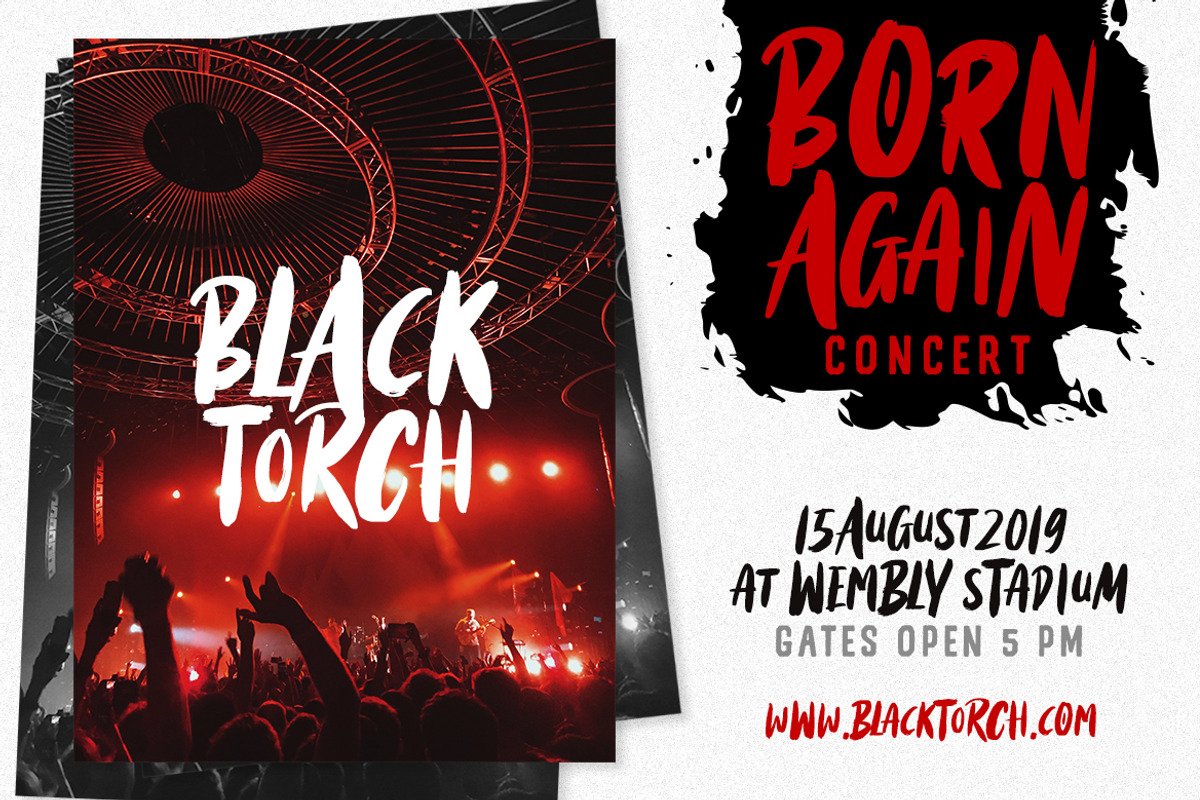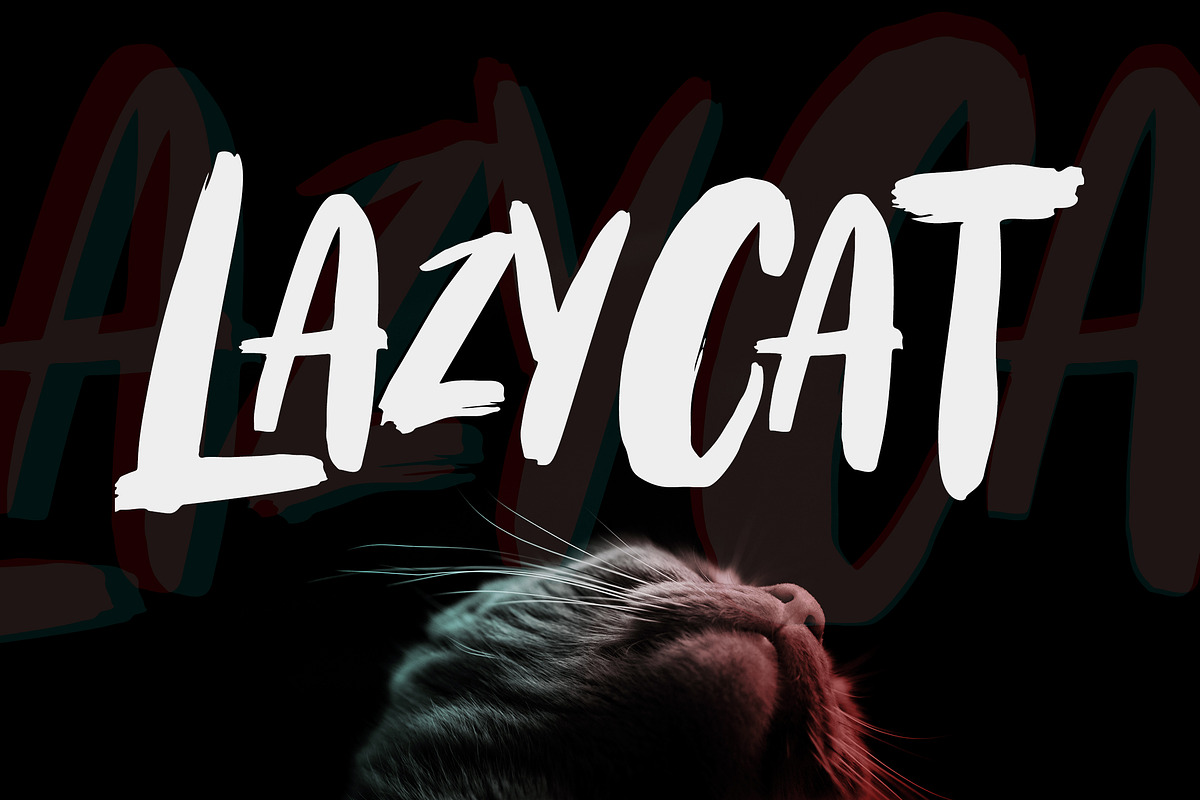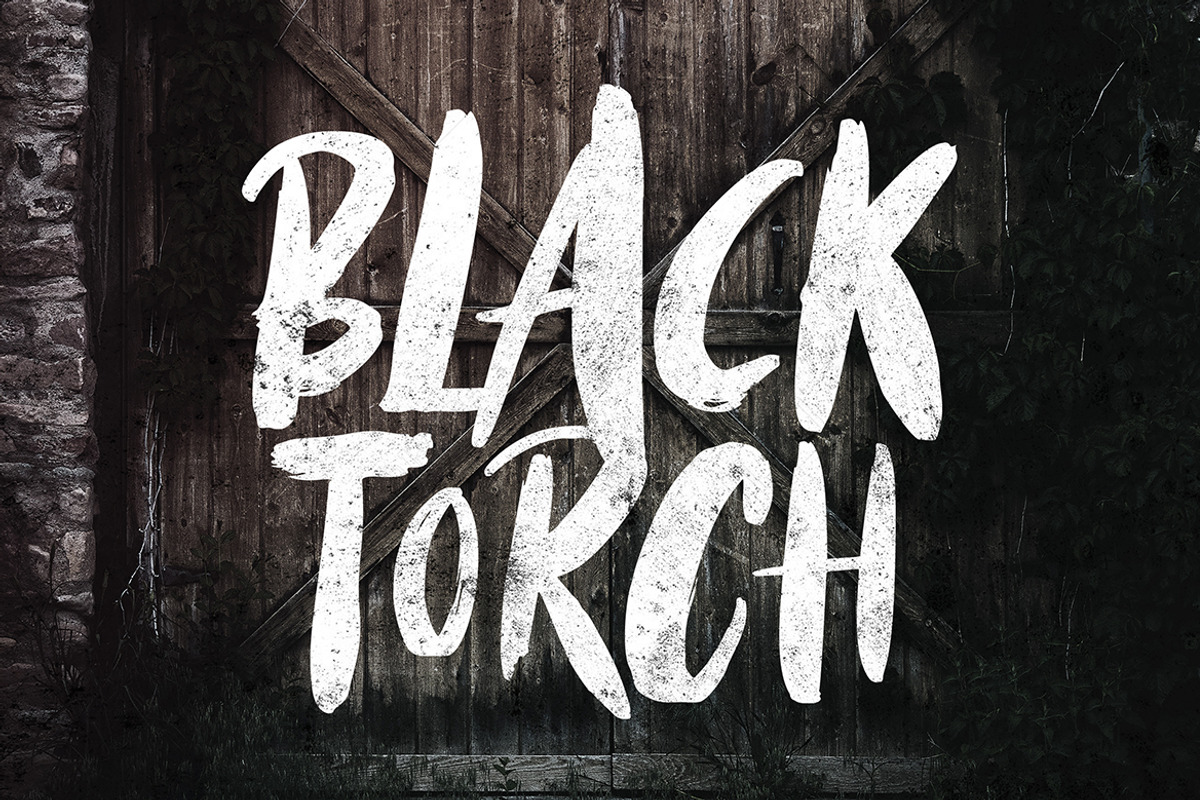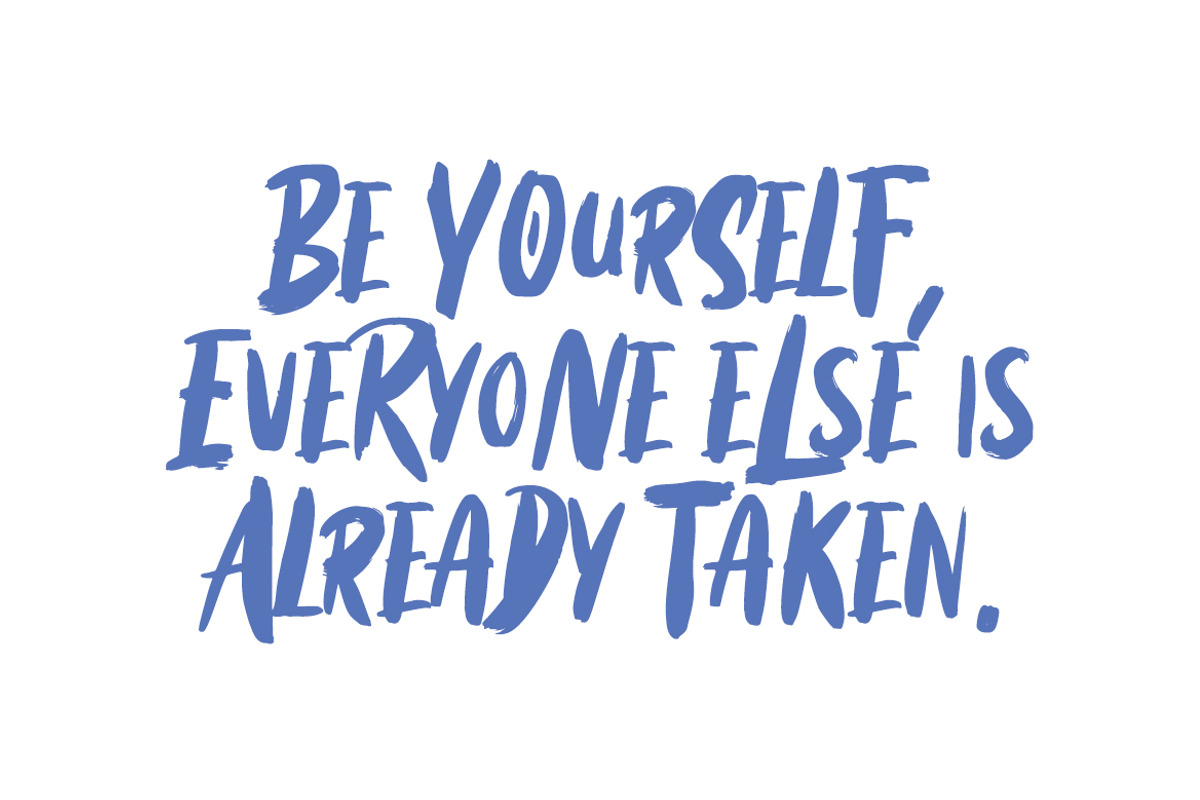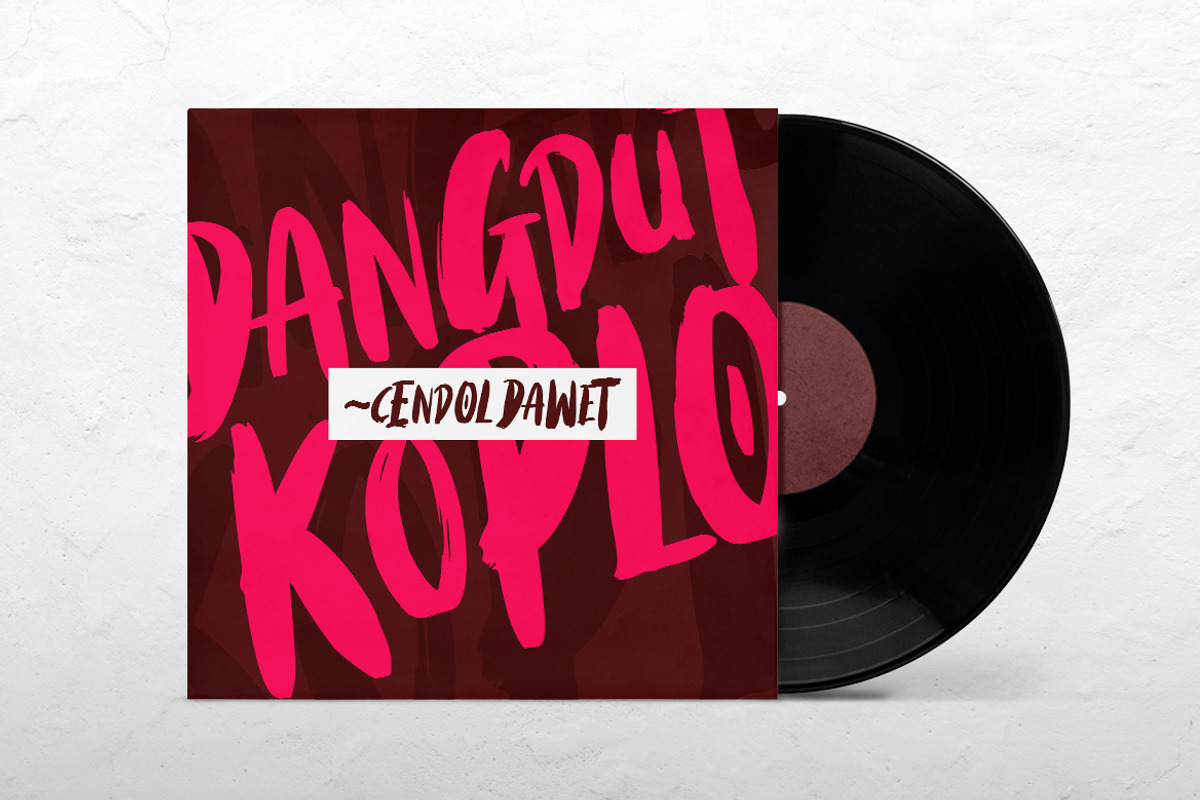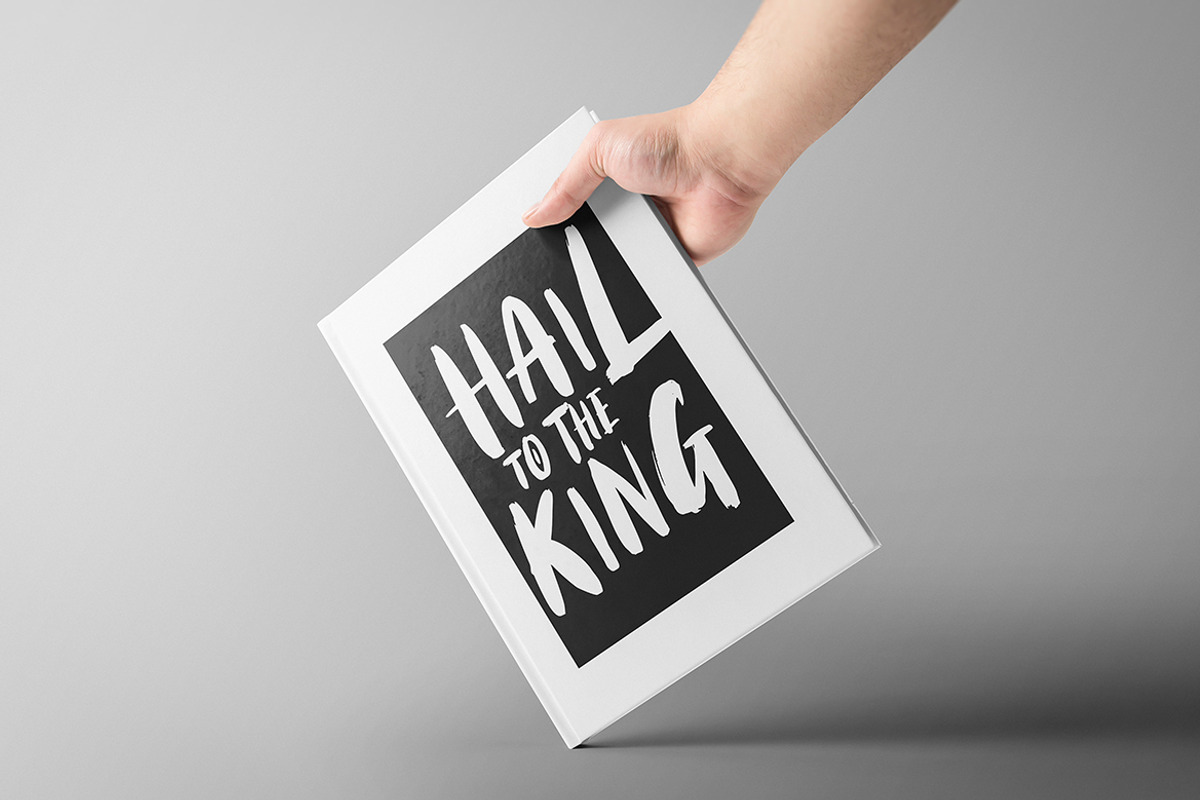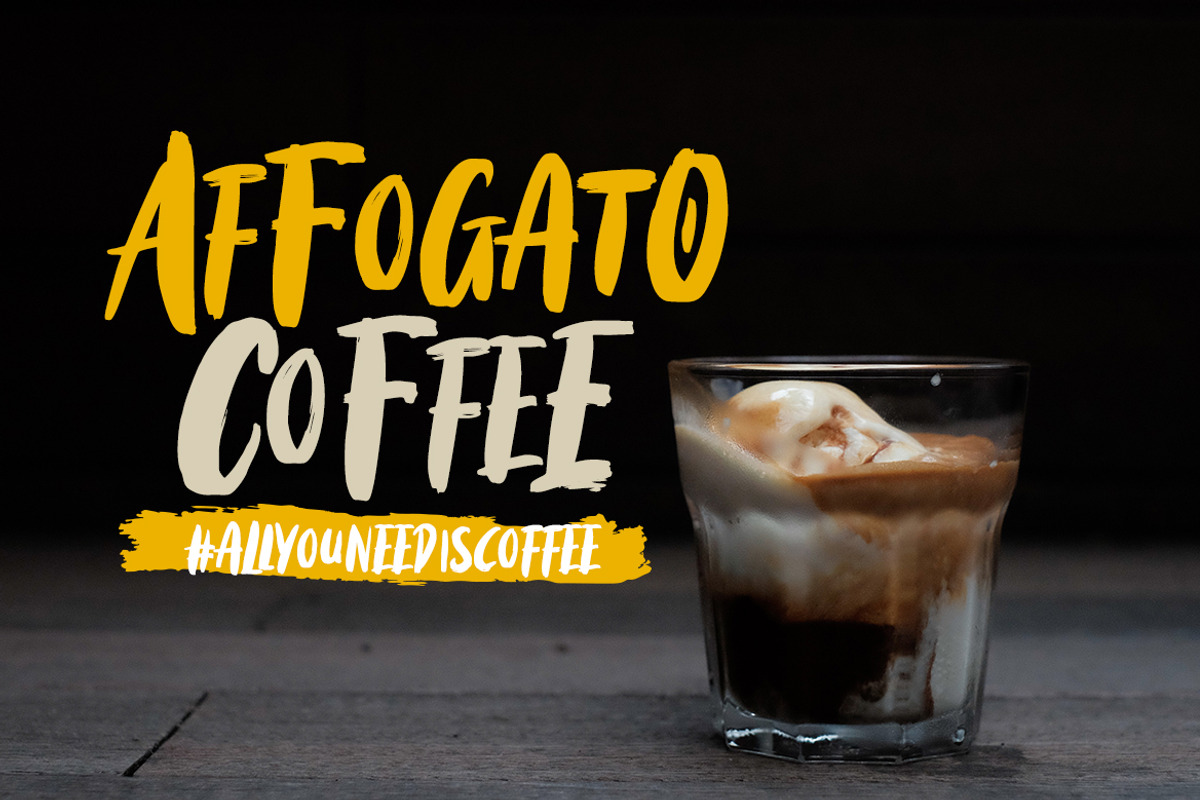
Black Torch - Dry Brush Font
Introducing Black Torch - Dry Brush Font! Black Torch is brush font bursting with natural rough dry brush strokes, and the stroke of hand sharp and quickly. You can use and enjoy Black Torch, for anything from promotional material to product packaging, merchandise and branding projects
And this font perfect for logo, band, poster, apparel, album cover, book cover, product packaging, handwritten quotes, magazine and advertising. You can create with uppercase and lowercase combination, and make it as if you wrote it yourself.
All fonts is capitals containing upper & lowercase characters, numerals, multilingual support and a large range of punctuation.